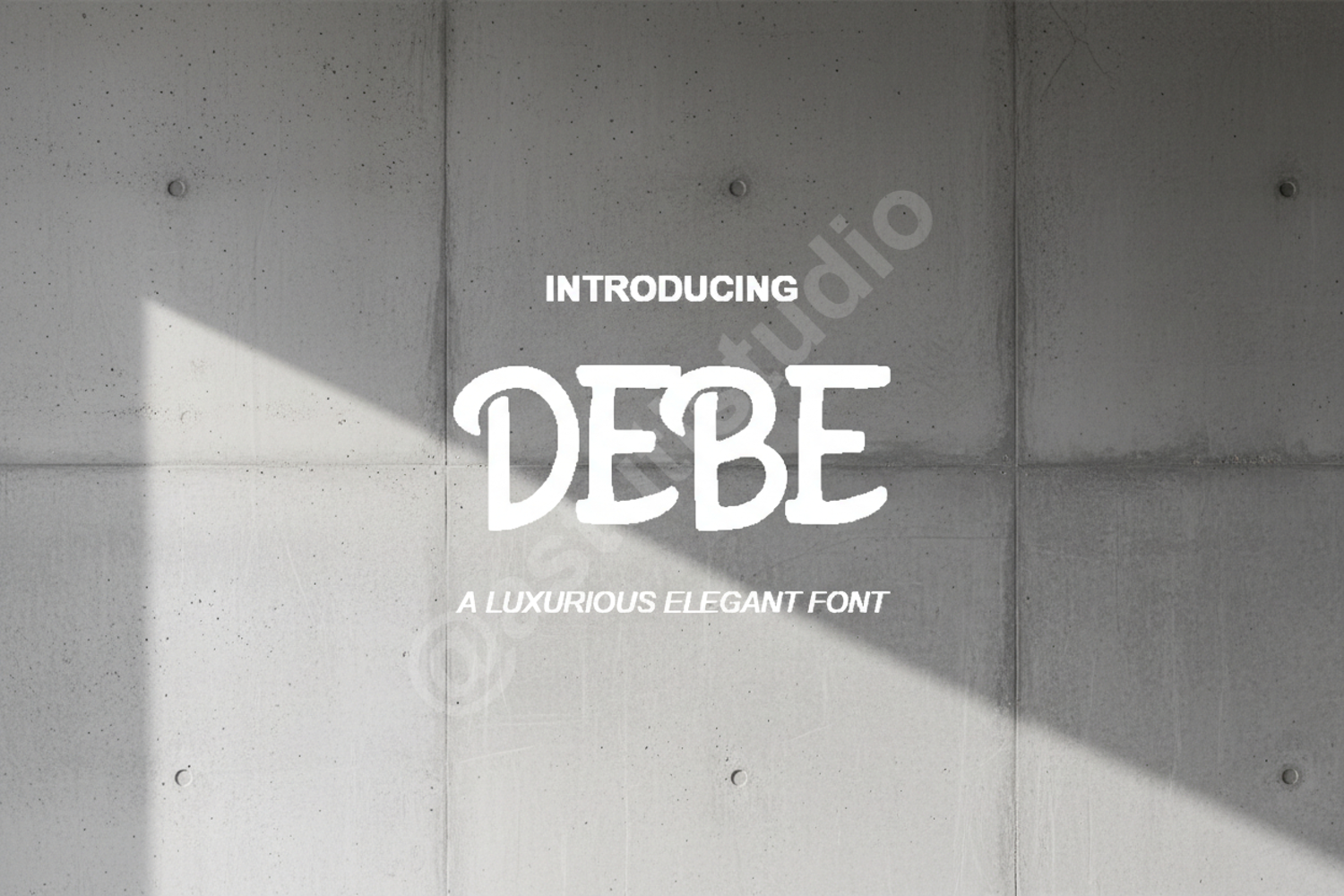
Debe - Elegant Modern Serif Typeface
Debe
Experience the perfect blend of sophistication and modern aesthetics with Debe. This premium serif font is meticulously crafted to bring a touch of luxury to your creative projects. With its clean lines and balanced proportions, Debe offers a timeless appeal that stands out in any design landscape, making it a must-have for designers seeking a professional edge.
Debe is a versatile powerhouse designed for high-end applications. Its clean and legible structure makes it particularly effective for:
- Professional Branding and Visual Identity
- Elegant Wedding Invitations and Stationery
- Editorial Layouts and Magazine Headlines
- Sophisticated Logo Design and Wordmarks
- Social Media Graphics and Luxury Packaging
- Modern Website Headers and User Interfaces